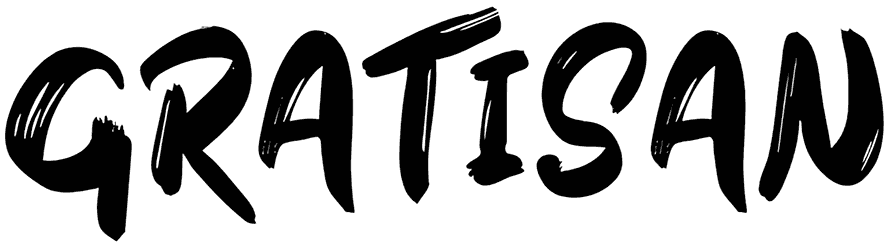
Gratisan Font
If you are looking for a straightforward solution to bewilder your customers at the first glance, we offer you to utilize Gratisan in designing posters, logos, the user interface of video games, packaging, and book covers.
This all-caps typeface can add a sense of personalization, momentum, and drama to any artwork that requires a handwritten touch. As the last word, we recommend you to visit our archive to find more brush fonts like this one.
GRATISAN – Naturan Brush Font